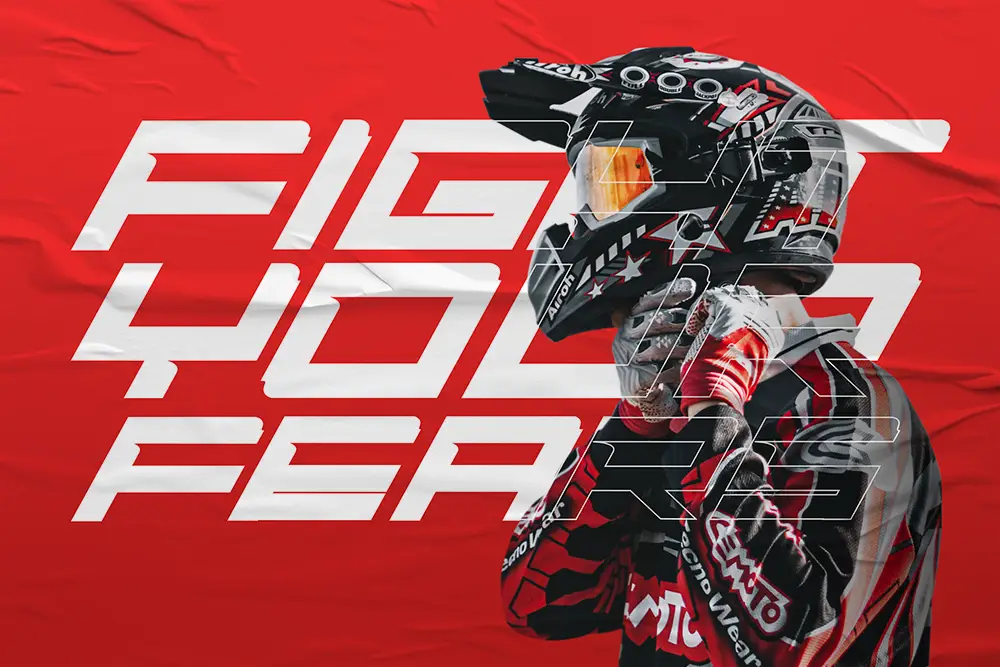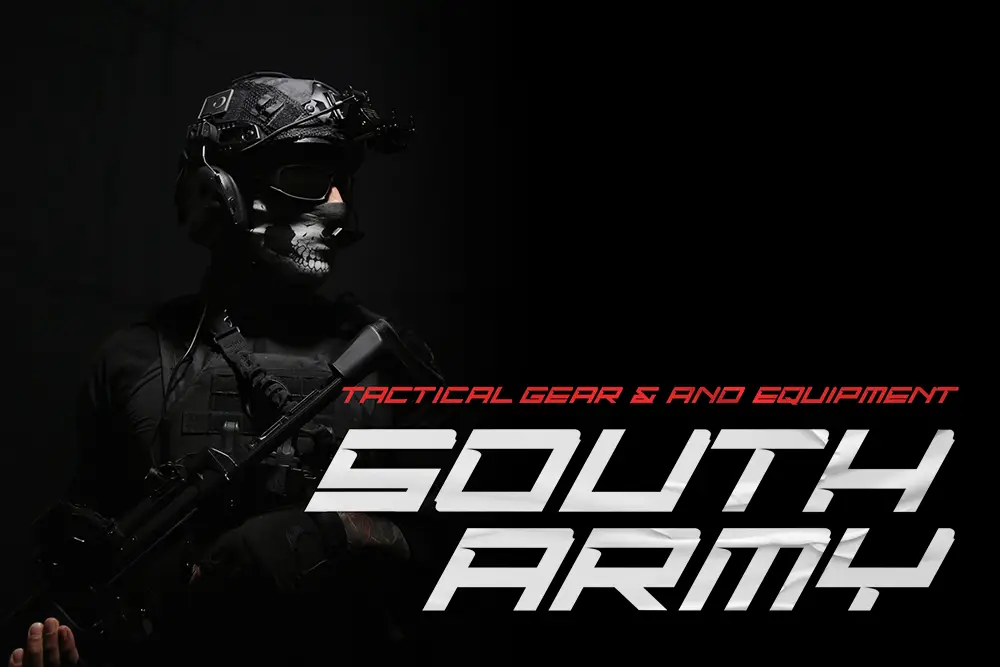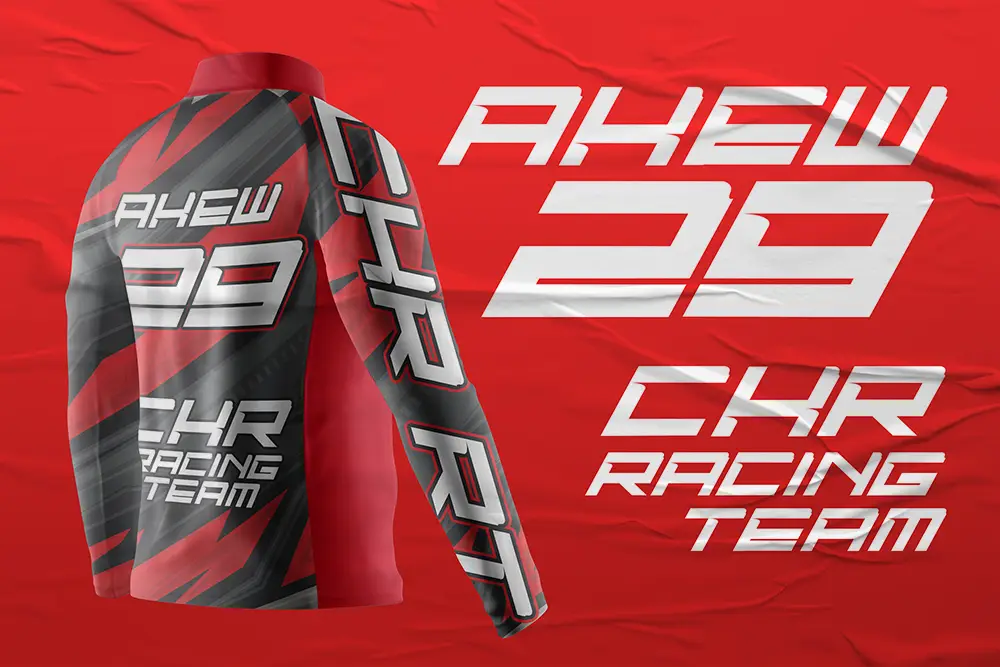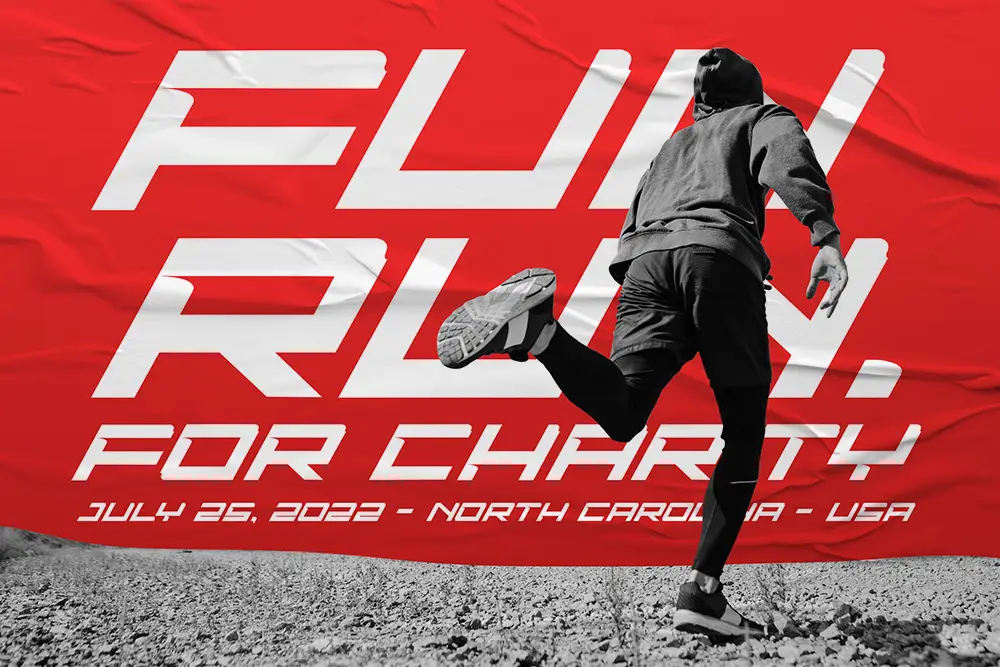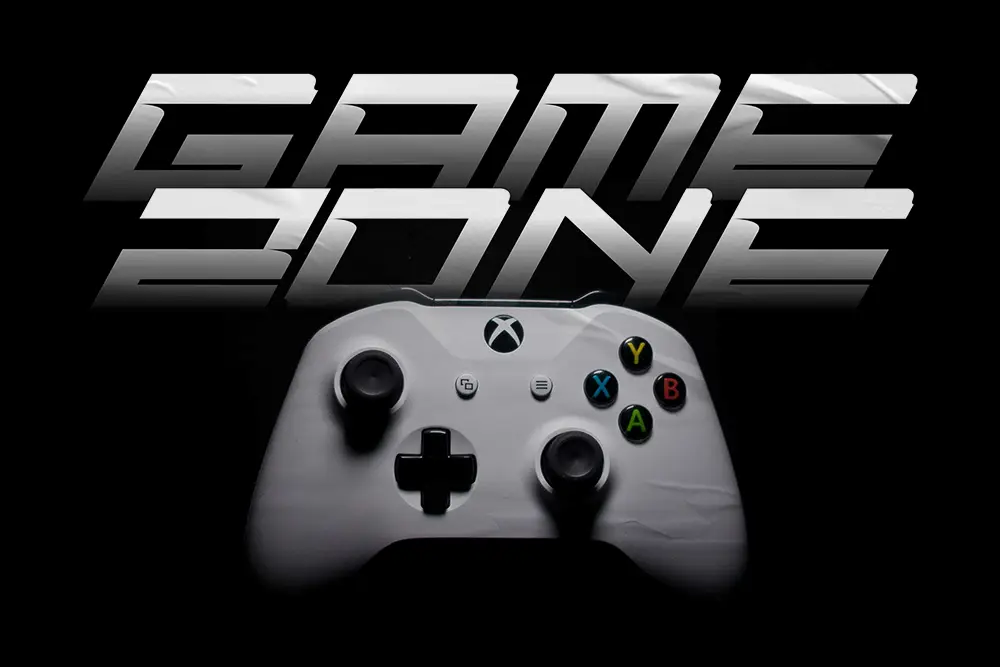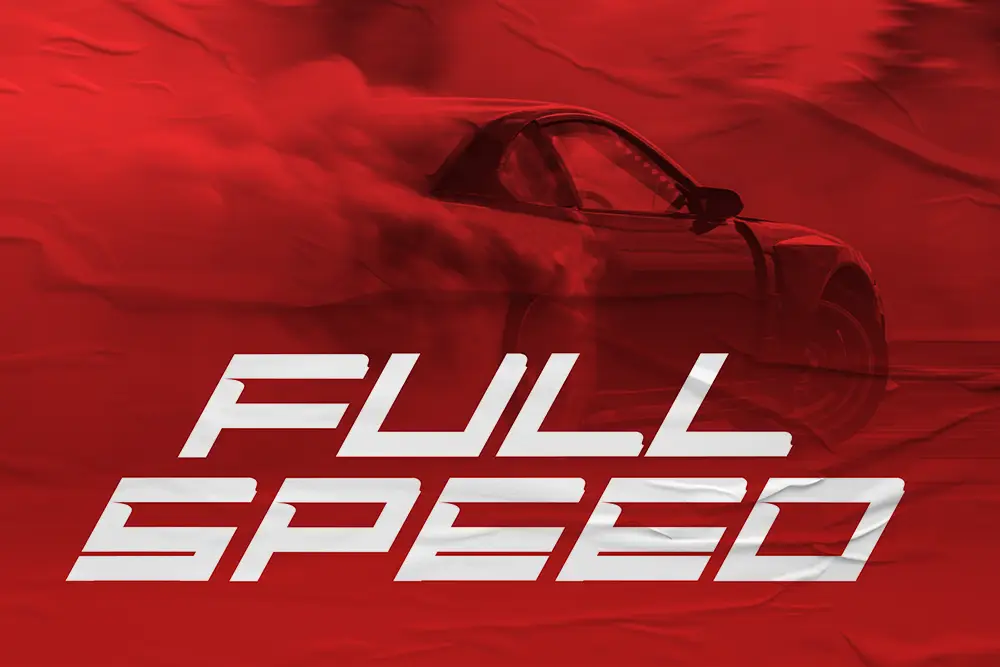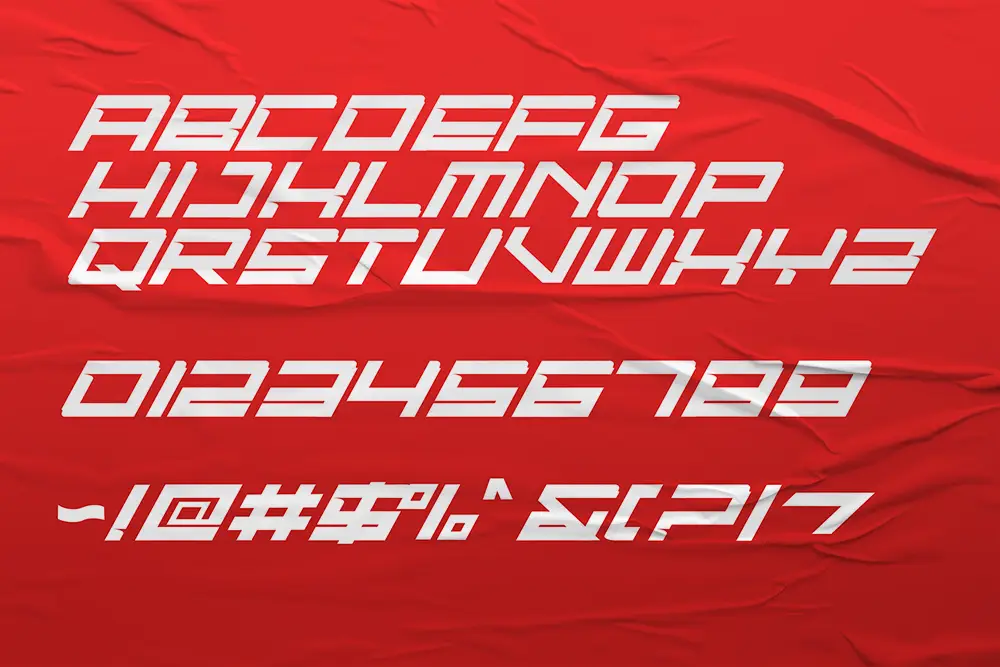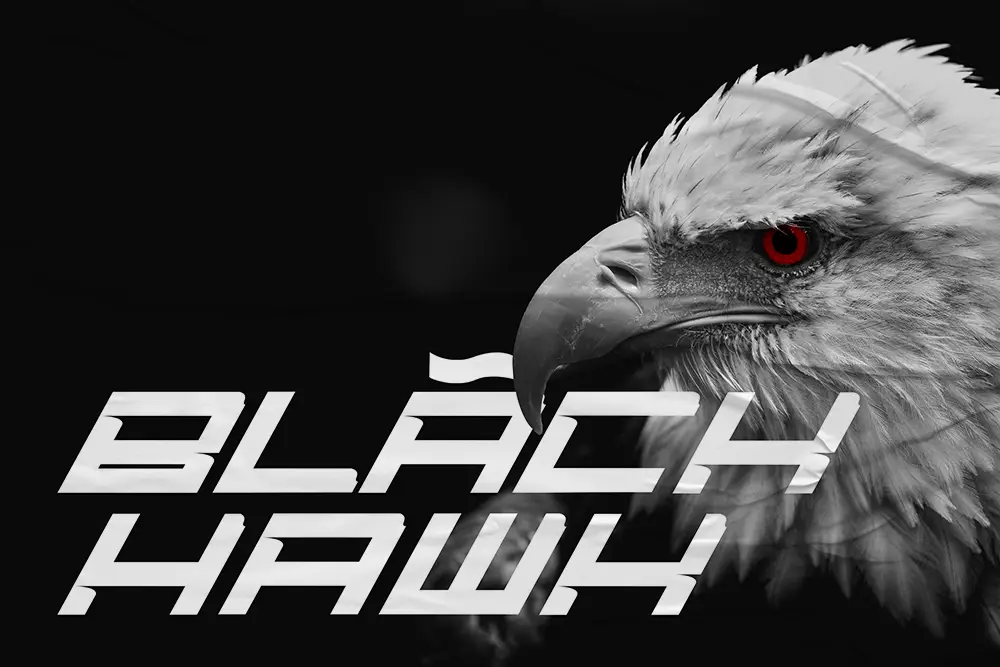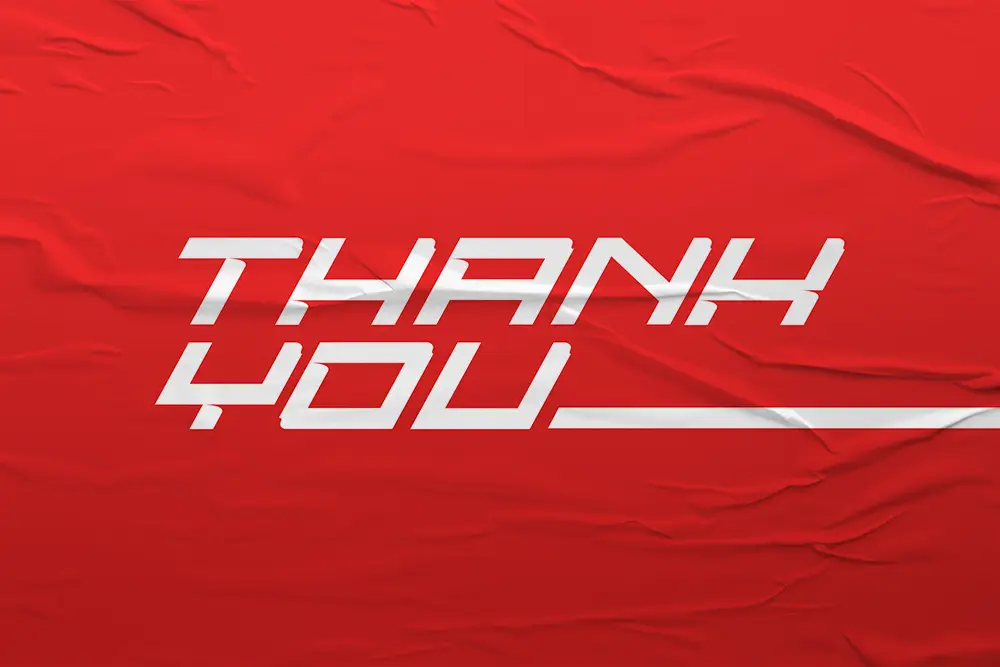
Fast Racer – Fastest Racing Font for High-Speed Design
In the world of typography, speed and impact often make the difference between an ordinary design and a show-stopping masterpiece. That’s where Fast Racer – Fastest Racing Font comes in. Designed with precision and inspired by the aesthetics of racing, speed, and motion, this fastest racing font delivers unmatched energy for logos, posters, esports, and high-octane branding projects.
The unique geometry of this racing font ensures your work reflects adrenaline and performance. Whether for motorsport events, digital campaigns, or esports teams, Fast Racer – Fastest Racing Font gives your designs an instant boost of speed.
Fastest Racing Font for Bold Logos and Posters
Logos and posters demand attention in an instant, and Fast Racer answers this demand with aggressive strokes, angled details, and extended shapes. This fastest racing font is crafted to embody the spirit of competition, velocity, and bold energy.
Its all-caps letter set provides power, while numbers and punctuations ensure it works perfectly across event posters, sports schedules, or merchandise branding. If your goal is to make a logo scream “speed,” Fast Racer is your ultimate racing typeface.
Key Features of Fast Racer – Fastest Racing Font
When choosing a professional racing font, you need more than looks—you need usability. Here’s what makes Fast Racer – Fastest Racing Font a designer’s favorite:
- Character Set: All Caps, Numbers, Punctuations
- Multilingual Support: Extended Latin characters for global designs
- Speed-Inspired Aesthetic: Angled strokes and extended forms for racing energy
- Perfect for Display: Works best on logos, esports branding, and event posters
- Professional Quality: Clean kerning and balance for high readability
Why Designers Love Fast Racer
Designers worldwide love Fast Racer because it is more than a display font—it’s a storytelling tool. This fastest racing font speaks directly to audiences by communicating velocity, motion, and impact.
Here’s why it’s popular:
- High Energy: Perfect for esports logos, motorsport graphics, and fitness campaigns.
- Global Usability: With multilingual support, projects can target international audiences.
- Pairing Power: Looks incredible when paired with bold companions like Bolde – Powerful Sans Serif and raw brush typefaces like Roadpunks Handbrush Typeface.
- Professional Edge: Maintains readability while showcasing powerful speed aesthetics.
Fast Racer for Esports and Digital Branding
Esports and gaming designs thrive on bold visuals that convey energy. Fast Racer, as the fastest racing font, is perfect for YouTube banners, Twitch overlays, tournament graphics, and gaming logos.
Its sharp, angular details bring futuristic vibes while keeping legibility intact. For esports teams and gaming content creators, Fast Racer provides a competitive edge in branding.
Font Pairing Suggestions
Fast Racer becomes even more dynamic when paired with complementary fonts. Here are two top recommendations:
- Bolde – Powerful Sans Serif: balances Fast Racer’s racing style with clean professional lines for branding.
- Roadpunks – Handbrush Typeface: adds raw energy and hand-brushed character, creating posters and campaigns with real punch.
Pairing this fastest racing font with contrasting typefaces ensures your designs remain unique and powerful.
- Category: Racing Display Font / Fastest Racing Font
- Best Uses: Logos, Posters, Esports, Branding, Advertising, Digital Media
Why Fast Racer is the Fastest Racing Font You Need
When speed and impact matter, only the best racing typography will do. Fast Racer embodies everything a fastest racing font should: boldness, motion, and adaptability.
Its unique all-caps style is tailored for big statements, and with numbers and punctuations included, it works seamlessly across sports posters, events, and branding. For designers who want their projects to look unstoppable, Fast Racer is the clear choice.
Fast Racer – Fastest Racing Font is more than just a display typeface—it’s a design engine built for speed. With all caps, numbers, punctuations, multilingual support, and multiple file formats, it’s ready for professional projects of any scale.
Pair it with Bolde for strong branding, Roadpunks for gritty impact, and watch your designs race ahead of the competition.
If you’re ready to supercharge your branding, posters, or esports visuals, Fast Racer is your fastest way forward.